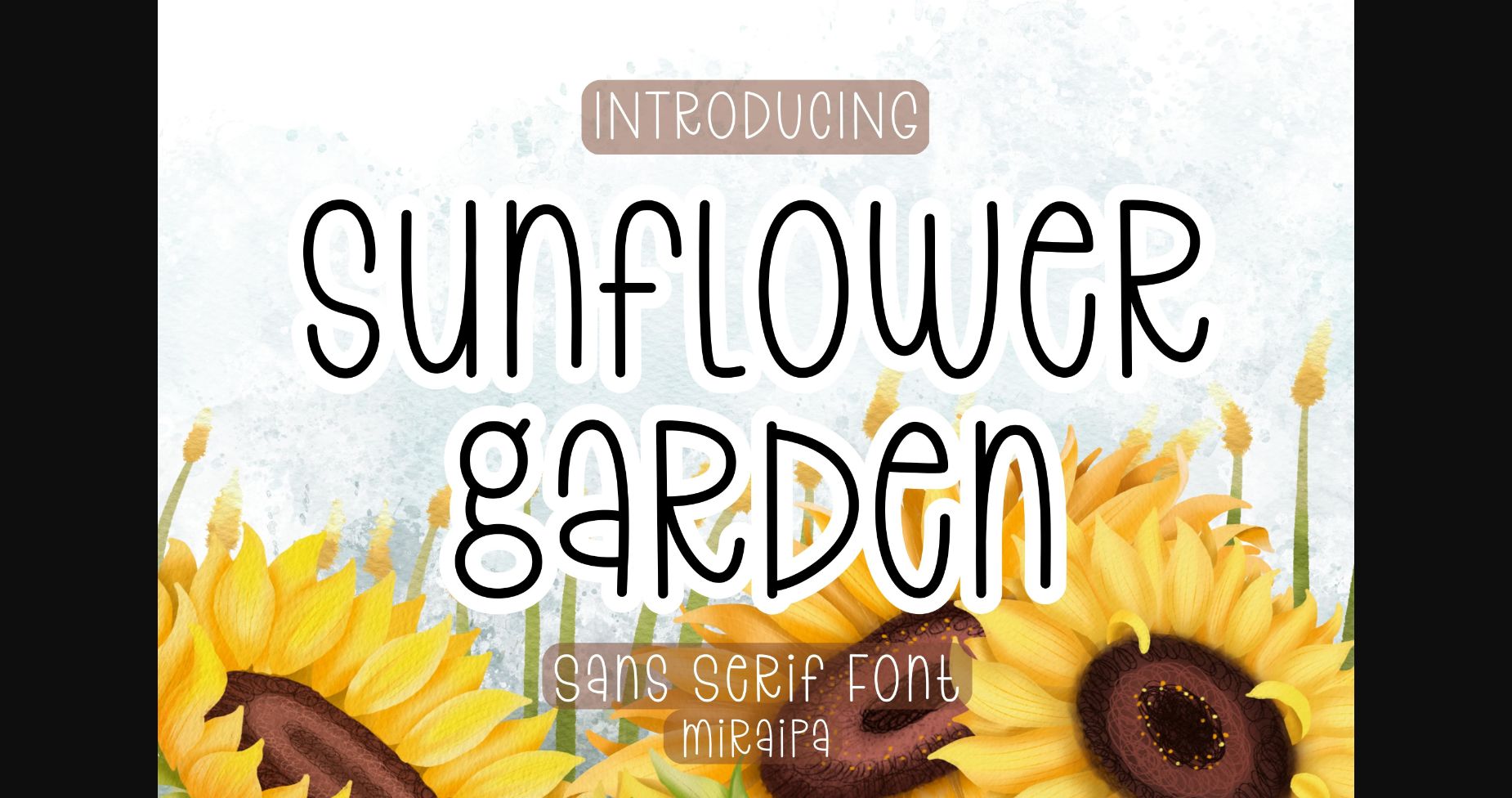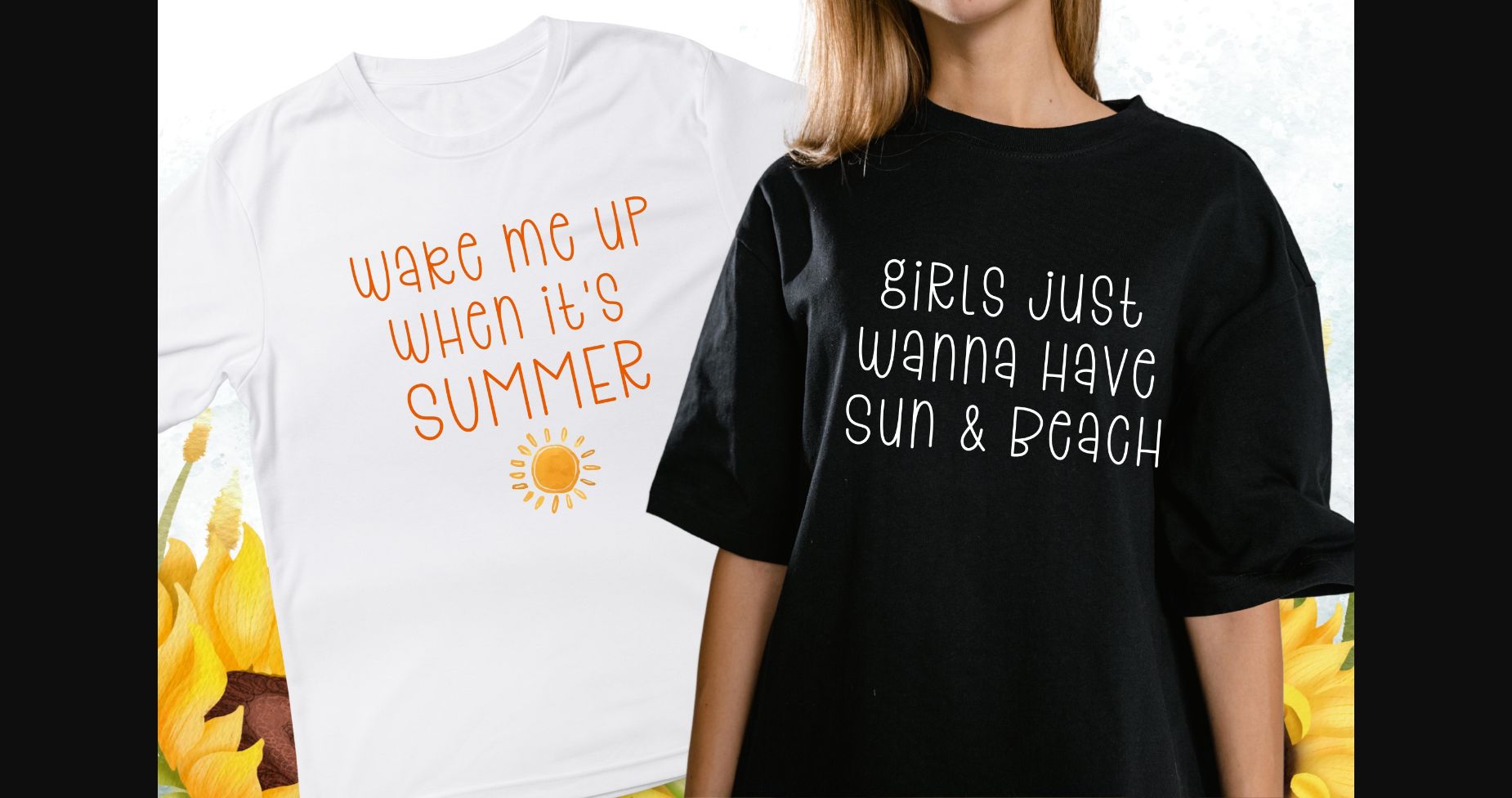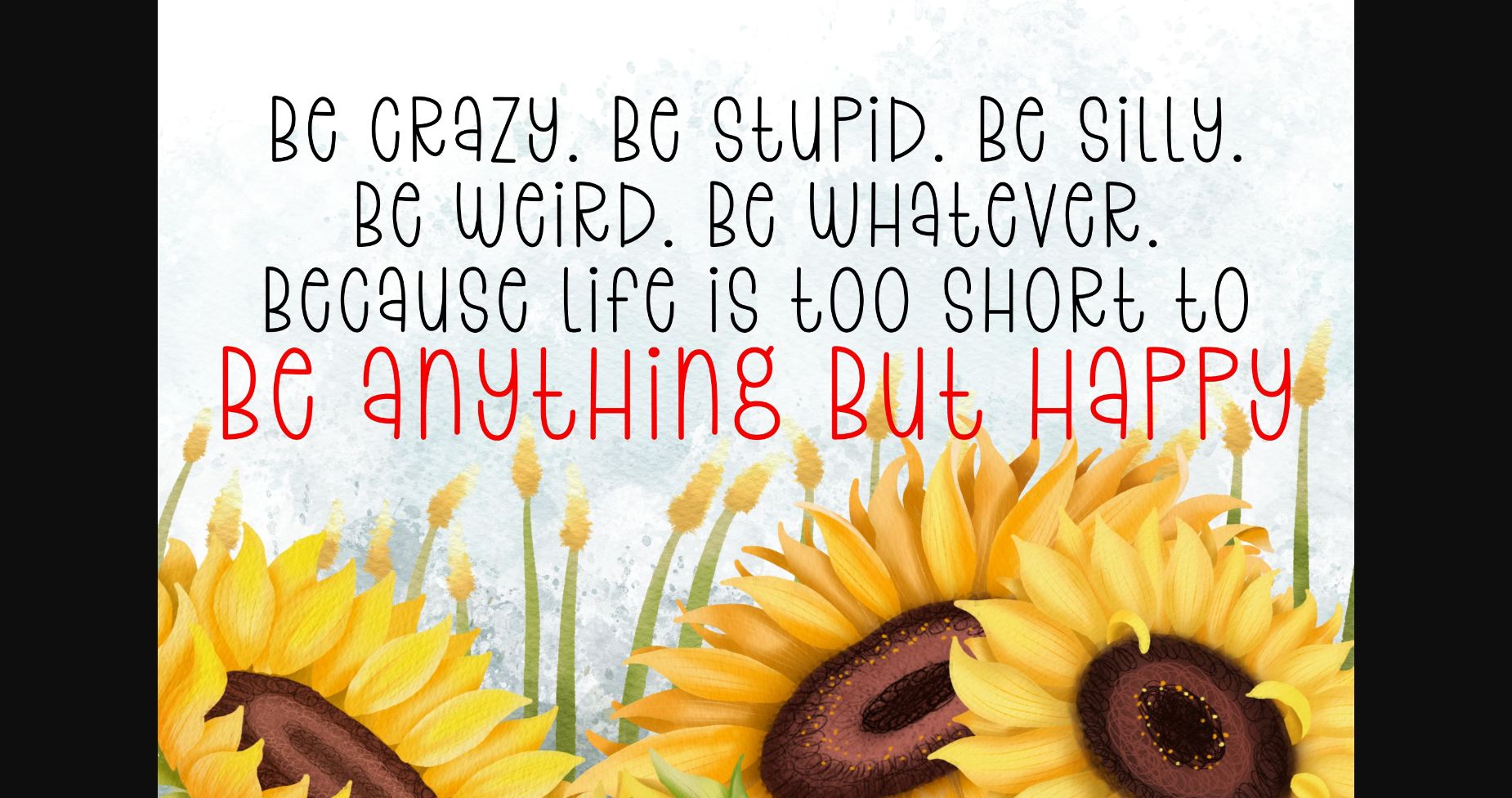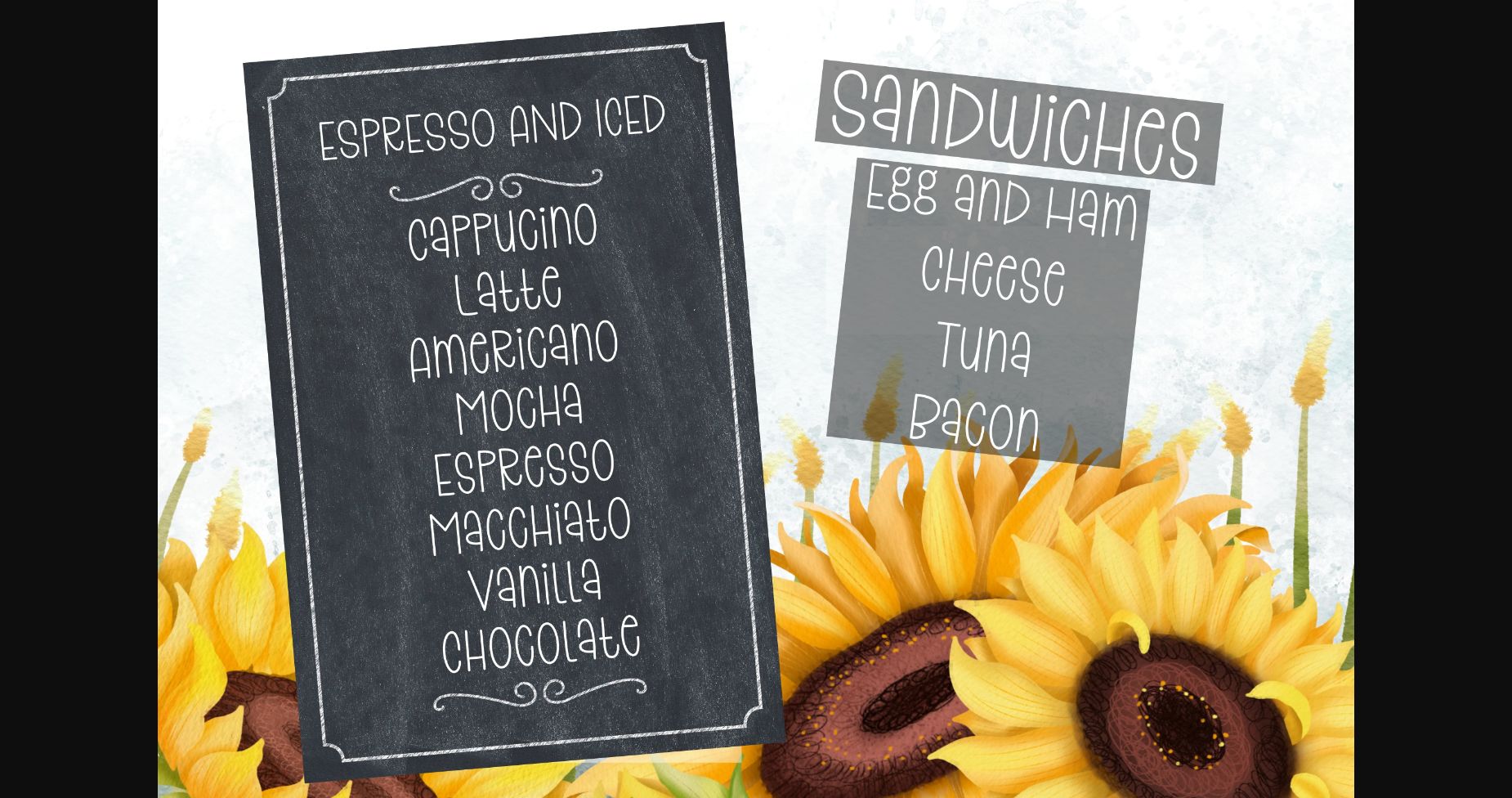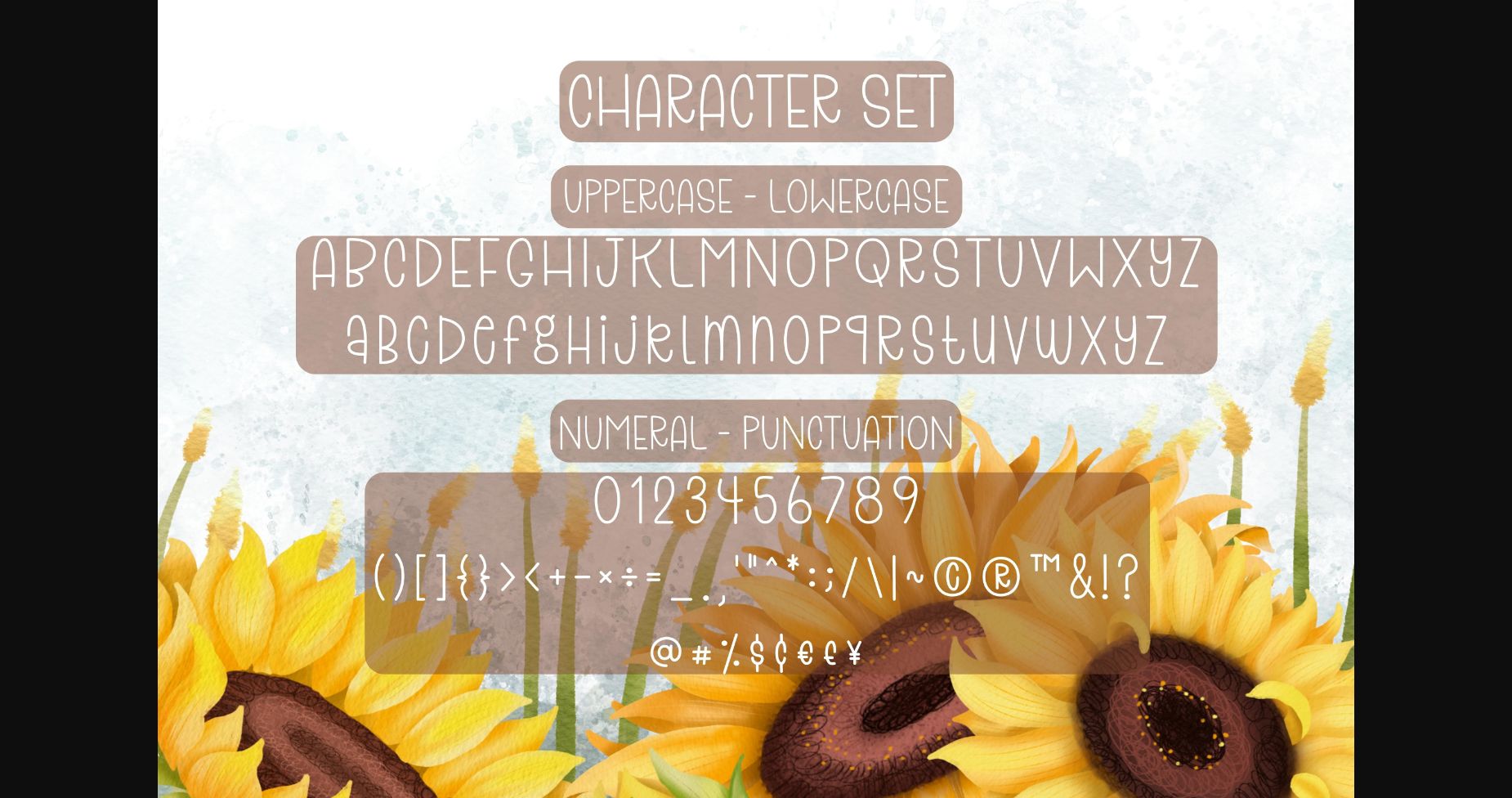
Sunflower Garden Font
About Sunflower Garden Font
Sunflower Garden is designed in a cute and friendly handwritten sans serif font style. It would be awesome for your fun projects or diary planner. Let’s try it for your perfect projects such as Easter, back to school, weddings, party decorations, invitations, Fall, Halloween, Christmas, posters, blogs, clothing, child-related designs, greeting cards, social media posts, or anything that needs a friendly touch. Add it now to your fonts library, and it will bring any of your DIY projects to life.